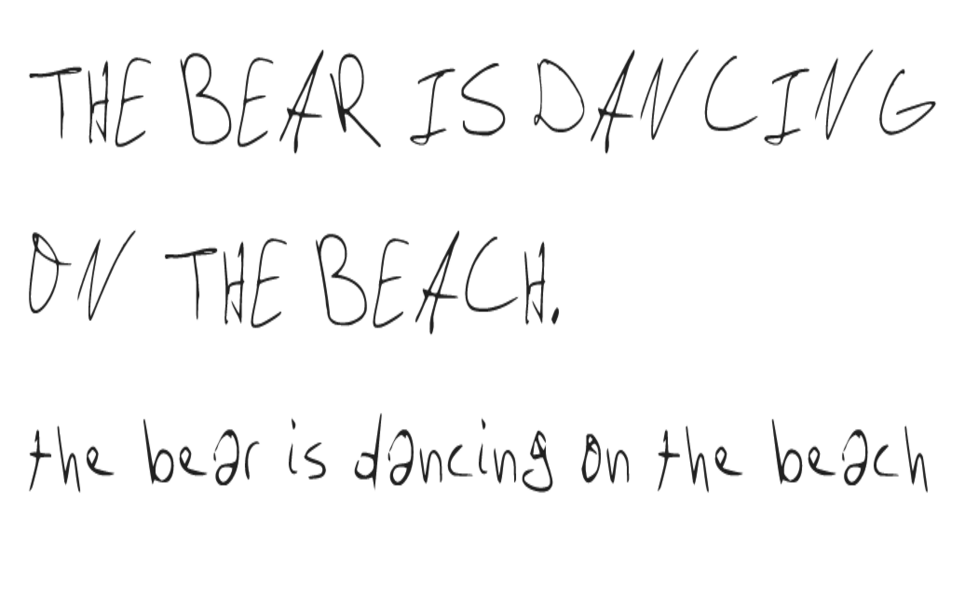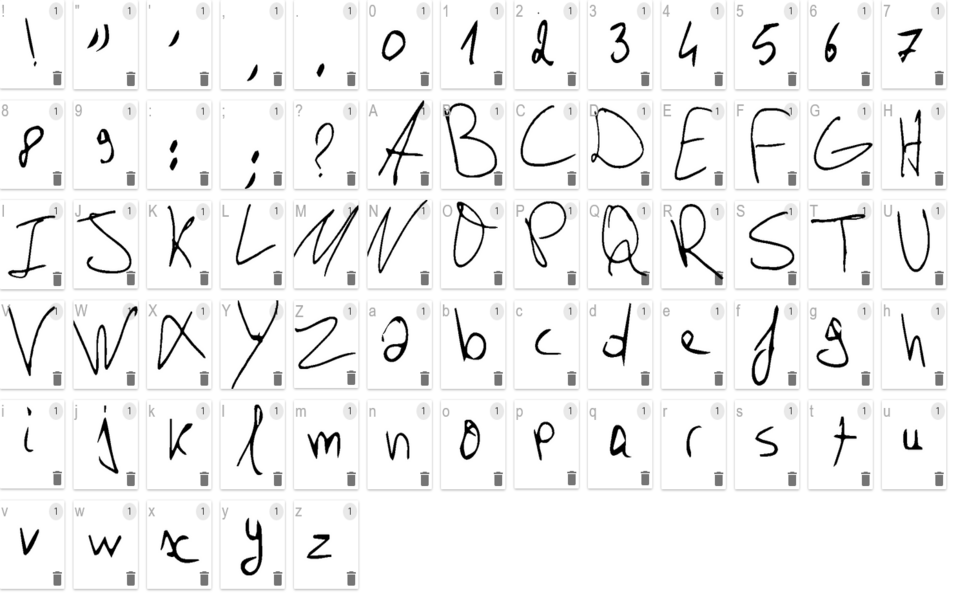
Handyfont Font Made Using Hand
This is the font that you need whenever you want to show yourself using a hand written font from a normal hand in a normal environment. It can be used on any image or write any type of document in cappital letters or minuscul letters it is up to you to chose what you want the font to be used for.